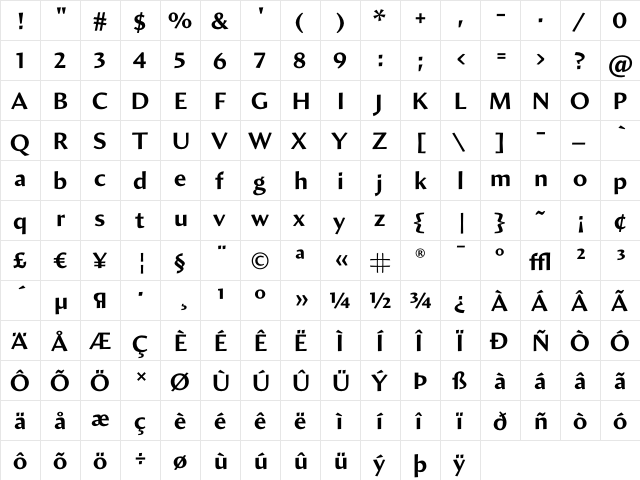
Amira Bold
Design Context for Amira Typeface
Amira offers clean, dependable letterforms without strong stylistic allegiance, making it a practical choice for designers who need flexibility. Its bold stroke weight gives it real presence on the page.
Pro Tip: Use Amira in both headline and body roles to test its range before committing to a single application.